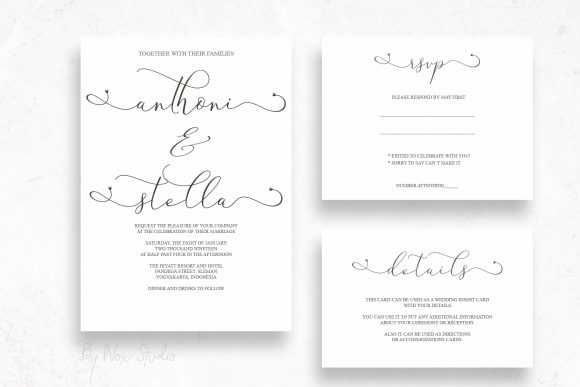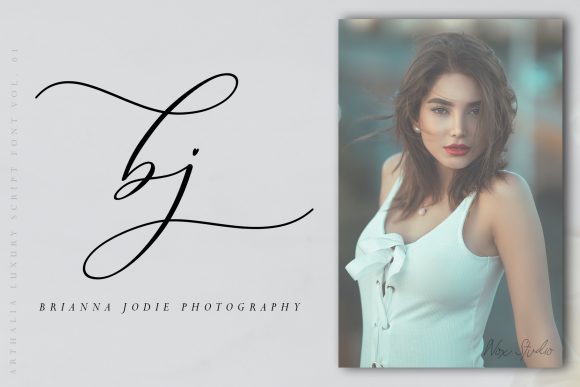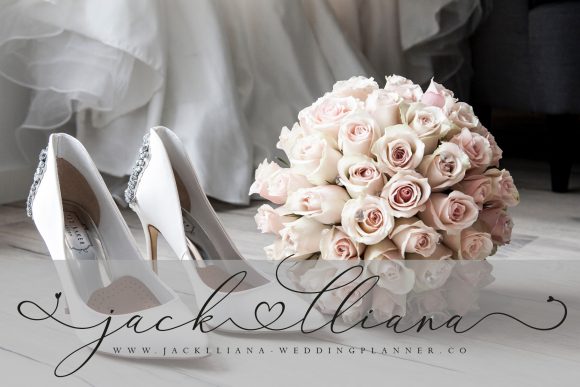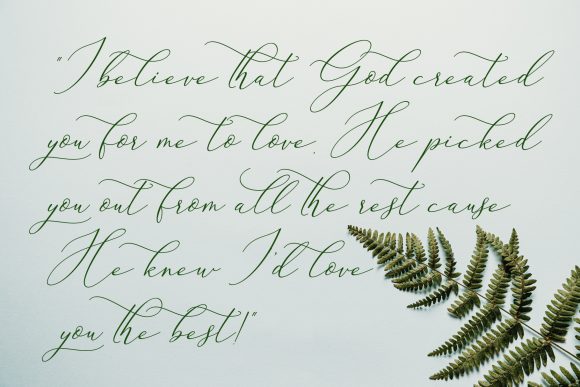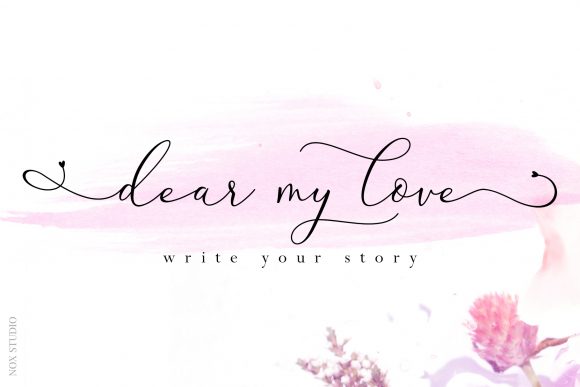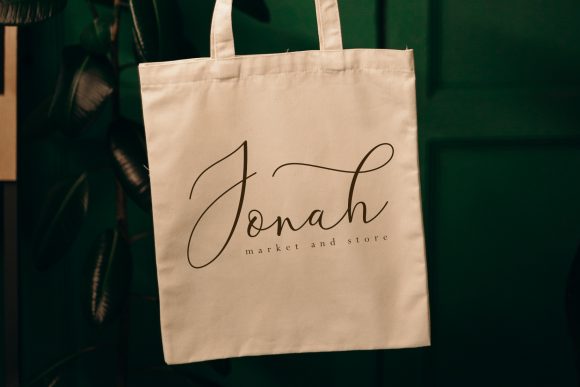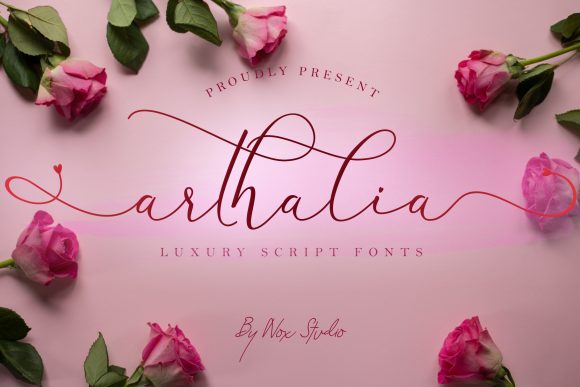
Introducing Arthalia Font: Elevate Your Designs with Elegance and Sophistication
In the world of typography, a font can make all the difference in the success of a design project. Whether you’re working on a branding campaign, crafting a beautiful wedding invitation, or creating engaging content for your blog, the right font can elevate your work from ordinary to extraordinary. This is where Arthalia Font comes into play – a dazzling script font that is not only aesthetically pleasing but also highly versatile and functional.
What Makes Arthalia Font Stand Out?
Arthalia Font is meticulously crafted with attention to detail, showcasing a neat and sophisticated design. Its elegant strokes and beautiful swashes make it an excellent choice for a wide range of projects. From luxury brand logos to creative crafts and everything in between, Arthalia has the potential to enhance any creation with its unique charm.
Key Features of Arthalia Font
- PUA Encoding: One of the standout features of Arthalia Font is its PUA (Private Use Area) encoding. This means that users can easily access all glyphs and swashes, offering greater flexibility and creativity in design. PUA encoding allows for the use of special characters and ligatures, making it possible to add a personal touch to any project.
- Highly Detailed and Neatly Crafted: Arthalia’s design is characterized by its meticulous detail and neat appearance. This ensures that the font remains legible and impactful, even at various sizes and resolutions.
- Versatility: The versatility of Arthalia Font is one of its most compelling attributes. It can be used across different themes and industries, adapting seamlessly to different design requirements. Whether you’re aiming for a formal, elegant look or a more playful, whimsical feel, Arthalia can help you achieve your design goals.
Applications of Arthalia Font
The applications of Arthalia Font are vast and varied. Here are a few examples of how this beautiful script font can be utilized:
- Branding and Logo Design: Arthalia’s elegant and sophisticated appearance makes it an excellent choice for luxury brands looking to establish a refined and high-end image.
- Wedding and Event Stationery: The font’s romantic and whimsical undertones make it perfect for wedding invitations, save-the-date cards, and other event-related stationery.
- Digital Content Creation: For bloggers, social media influencers, and content creators, Arthalia can add a touch of elegance and personality to blog posts, social media graphics, and video content.
- Crafting and DIY Projects: Crafters and DIY enthusiasts can use Arthalia to add a professional and personalized touch to their projects, such as handmade cards, journal entries, and craft tutorials.
Tips for Using Arthalia Font Effectively
To make the most of Arthalia Font, consider the following tips:
- Pair with Complementary Fonts: Arthalia works well when paired with clean, sans-serif fonts. Experiment with different combinations to find the perfect balance for your design.
- Experiment with Swashes: Take advantage of Arthalia’s swashes to add flair and personality to your text. Swashes can be used to create beautiful connections between words or to add decorative touches to headings.
- Adjust Font Sizes and Weights: Don’t be afraid to experiment with different font sizes and weights to create visual hierarchy and emphasize key elements in your design.
Arthalia Font is a stunning script font that offers a perfect blend of elegance, sophistication, and versatility. Its PUA encoding, detailed craftsmanship, and wide range of applications make it an invaluable asset for designers, crafters, and content creators. Whether you’re looking to elevate your branding, create beautiful stationery, or add a touch of personality to your digital content, Arthalia Font is sure to exceed your expectations. With Arthalia, you can unlock new creative possibilities and bring your design visions to life.